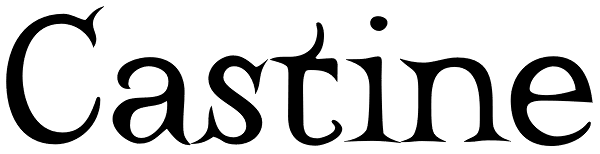
Castine
There's a cemetery in Castine, Maine, a lovely coastal town perhaps best known for Maine Maritime Academy and a surviving crop of stately old American elms, with headstones dating back into the 18th century -- the standard old headstone shape, often...
Castine
Castine Italic